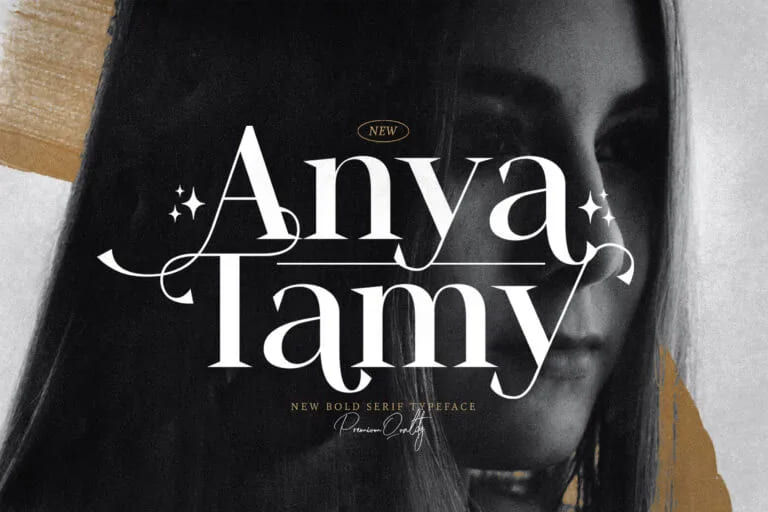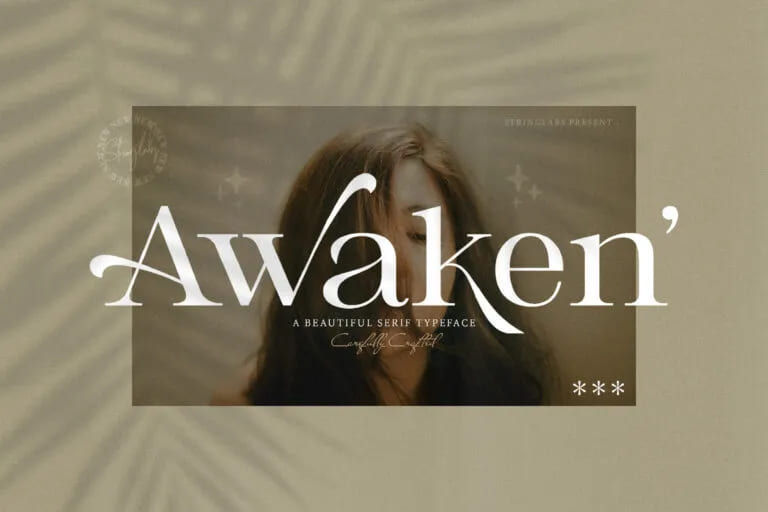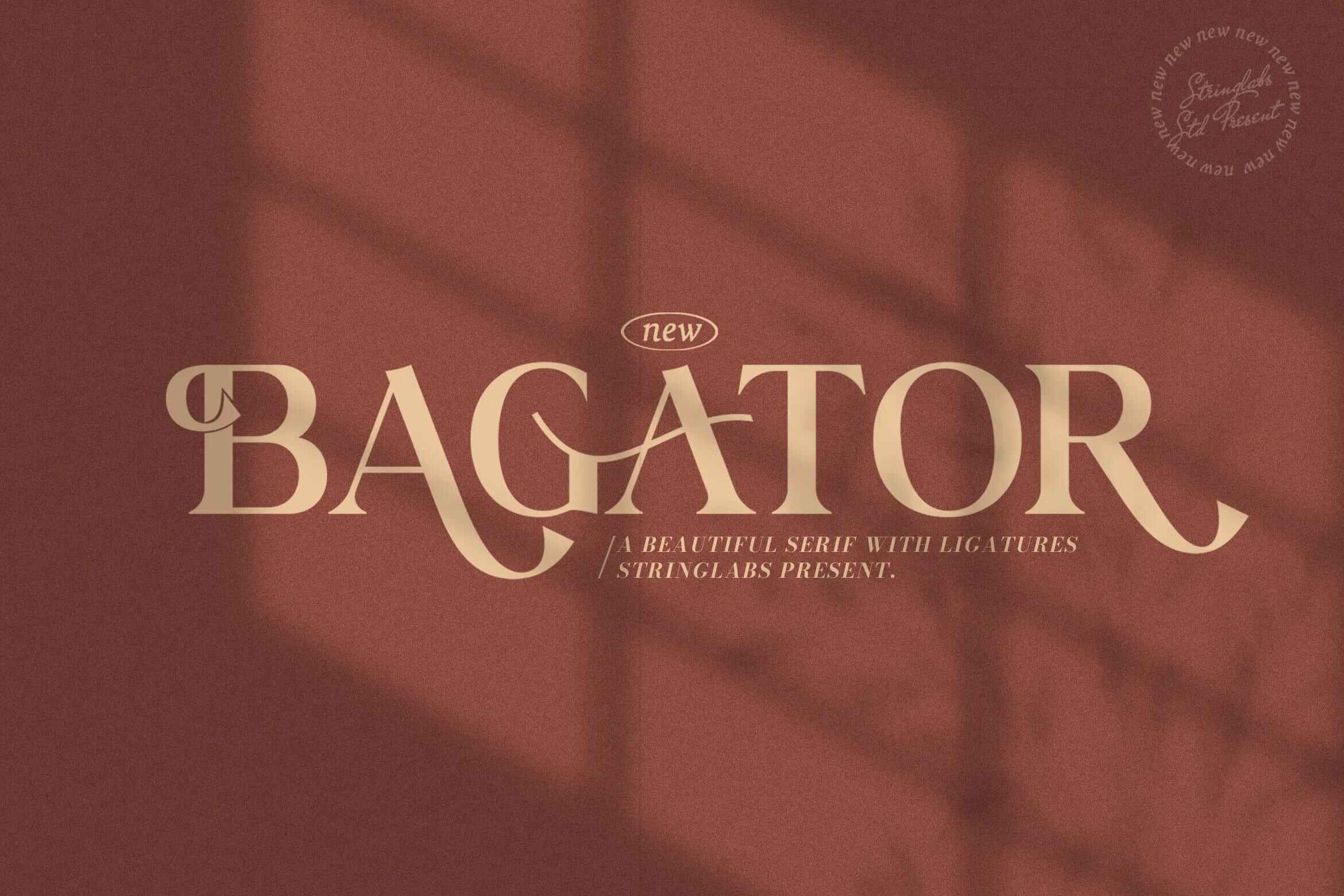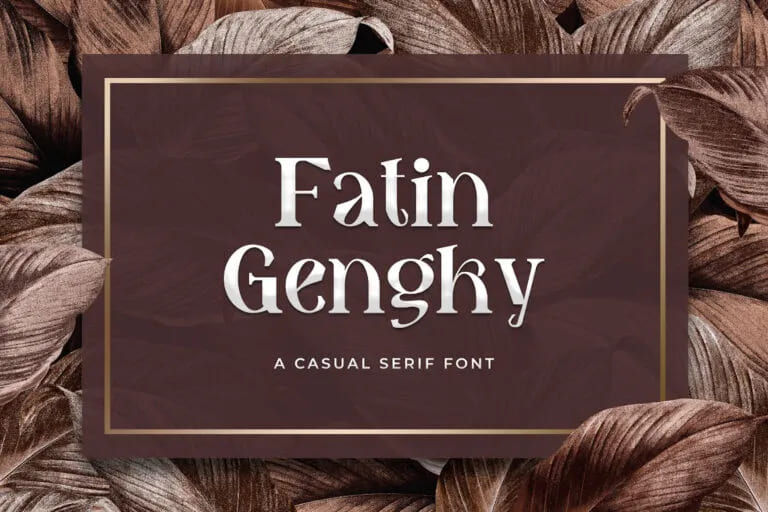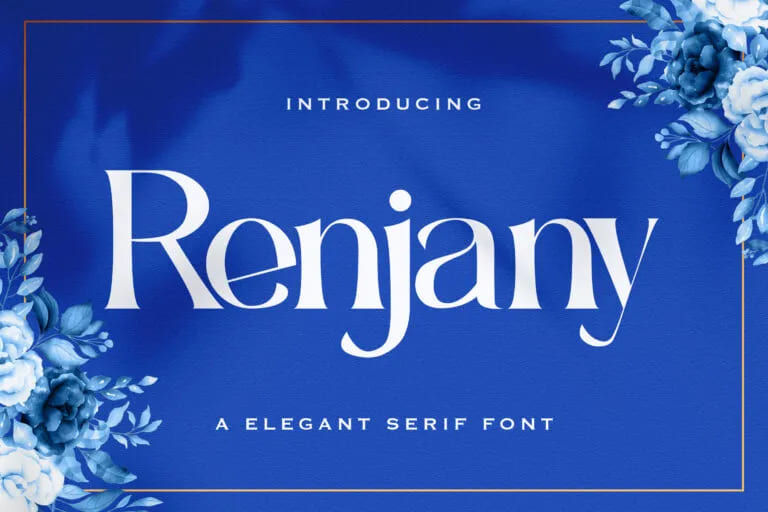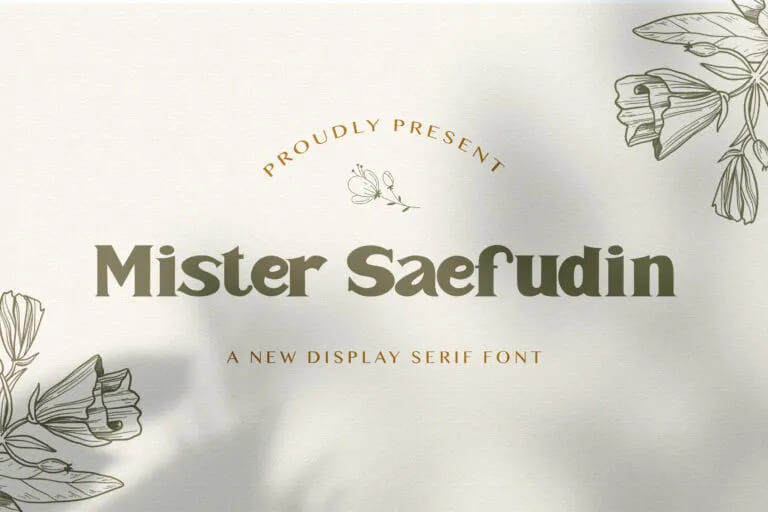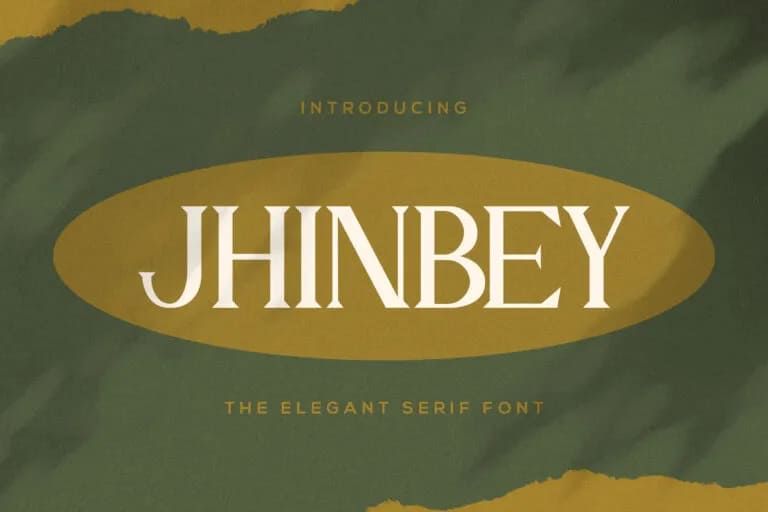
Serif Font for Videos: 25+ Options for Professional Looking
Enchant your potential viewers by crafting an inspirational video with a suitable serif font! This post offers the best selection of serif font for videos, and you can see how these fonts can elevate your works perfectly. Get ready to explore them one by one below.
25+ Compelling Serif Font for Videos
The following font selection will help your video stand out. Use them to gear up your content!
1. Purwatype
Purwatype Decorative Roman Serif Font
Purwatype Decorative Roman Serif Font | Source: Stringlabs Creative
Purwatype is a modern decorative serif font that depicts times less and elegance. Great for videos with formal and exclusive concepts.
2. Suliway
Suliway Classical Serif Font
Suliway Classical Serif Font | Source: Stringlabs Creative
Suliway has delicate serifs which makes it look feminine in a stylish and minimalist way. It may perfect videos with a classic, girly atmosphere.
3. Minguwest
Minguwest Decorative Serif Font
Minguwest Decorative Serif Font | Source: Stringlabs Creative
Blend your video’s nostalgic and modern vibes with Minguwest Decorative Serif font. Its decorative touch wont overdo, just enliven your video in smooth approach.
4. Rosemary
Rosemary Elegant Serif Font
Rosemary Elegant Serif Font | Source: Stringlabs Creative
Complete your classy video with the elegance of the Rosemary Serif font. Every character in this font is unbeatable, as it has pretty alternates in some alphabets.
5. Sandy King
Sandy King Classic Serif Font
Sandy King Classic Serif Font | Source: Stringlabs Creative
Sandy King has high-contrast strokes and obviously solid swash. This font looks familiar and warm, good for family-related or beauty videos content.
6. Rose Quay
Rose Quay Elegant Serif Font
Rose Quay Elegant Serif Font | Source: Stringlabs Creative
An exquisite font such as Rose Quay never fails to bring the dignity of a creation. The modern touch that this font holds magically turns your works into perfection.
7. Renjany
Renjany Elegant Serif Font
Renjany Elegant Serif Font | Source: Stringlabs Creative
Renjany mimics common sans serif font for videos. It has smooth curves and clean lines with subtle serifs that provide a romantic touch in casual letter shapes.
8. Mister Saefudin
Mister Saefudin Display Serif Font
Mister Saefudin Display Serif Font | Source: Stringlabs Creative
Mister Saefudin has crisp and high-contrast strokes. It will make the video thumbnails or headlines pop out!
9. Jhinbey
Jhinbey Elegant Serif Font
Jhinbey Elegant Serif Font | Source: Stringlabs Creative
Pick a serif font for videos like Jhinbey Serif to make your work look neat. Jhinbey also has alternate characters that you can combine to bring more impressive look.
10. Bhineka
Bhineka Elegant Serif Font
Bhineka Elegant Serif Font | Source: Stringlabs Creative
Emphasize the tidy look of your video by utilizing Bhineka as its font. Make use of its ligatures to make the writing unique.
11. Elegante
Elegante Decorative Serif Font
Elegante Decorative Serif Font | Source: Stringlabs Creative
A wide range of content can look flawless with Elegante font. Every character in this font looks stylish and naturally quirky as if handwritten with a pencil.
12. Phoenix Ayash
Phoenix Ayash New Bold Serif Font
Phoenix Ayash New Bold Serif Font | Source: Stringlabs Creative
Phoenix Ayash has various alternate characters that make it appear bold. This font is a great choice to depict and convey high-level creativity.
13. Anya Tamy
Anya Tamy New Bold Serif Font
Anya Tamy New Bold Serif Font | Source: Stringlabs Creative
Anya Tamy defines luxury and modernity through its high-pitch contrasting strokes and wedgy serifs. You can use this, especially for advertising videos.
14. Adibafih
Adibafih Modern Unique Font
Adibafih Modern Unique Font | Source: Stringlabs Creative
Adibafih modern font answers the need for modern elegance. Its letterform is unique with twirling swashes yet has decent readability.
15. Riley Frost
Riley Frost Serif Font
Riley Frost Serif Font | Source: Stringlabs Creative
Mix the contemporary with the classic vibes into one with Riley Frost font. Its bold look and numerous pretty alternates will make your work a masterpiece.
16. Awaken
Awaken Beautiful Serif Font
Awaken Beautiful Serif Font | Source: Stringlabs Creative
Awaken Serif Font will beat the common sans serif font for videos! It has both authenticity and elegance that will engage attention.